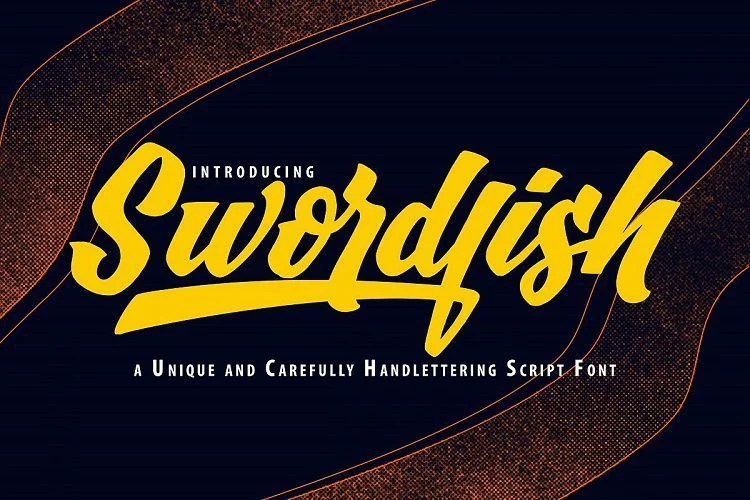
SwordFish Unique Handlettering Script Font
**SwordFish | Unique Handlettering Script Font** with a calligraphy style, So beautiful on invitation like greeting cards, branding materials, business cards, quotes, posters, and more!
The alternative characters were divided into several Open Type features such as Stylistic Sets, Stylistic Alternates, Contextual Alternate, SWASH and Ligature.